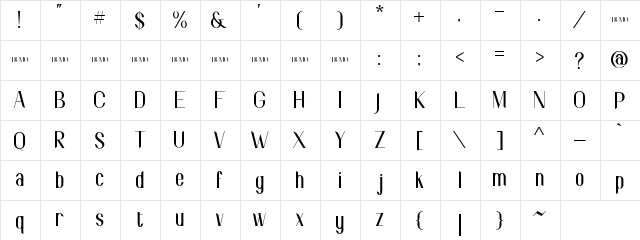
SOPHIA demo Regular
Design Context for SOPHIA demo Typeface
SOPHIA demo takes a measured approach to typography — its balanced proportions and neutral character make it a reliable workhorse for both digital and print work.